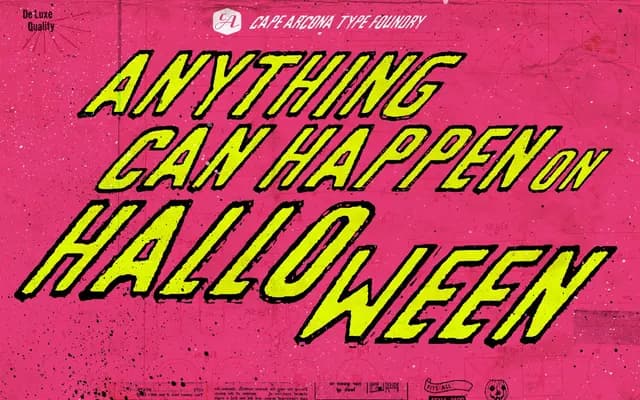
CA Weird Stories
Cape Arcona · Thomas Schostok
A two-style layered display face by Thomas Schostok designed to be stacked for a distressed, otherworldly special-effects result.
The Regular and Fill styles are built to overlay one another, producing a shadowed, dimensional effect when combined. Used separately, the Fill style reads as deliberately uneven, which is by design rather than accident. Western and Central European encodings are supported across 304 glyphs per style, making it workable for science fiction, horror and Halloween contexts.
Classified by Cape Arcona as Display Distressed; an irregular, slanted display face designed for stacking two complementary styles to produce layered special effects, placing it firmly in expressive display territory.